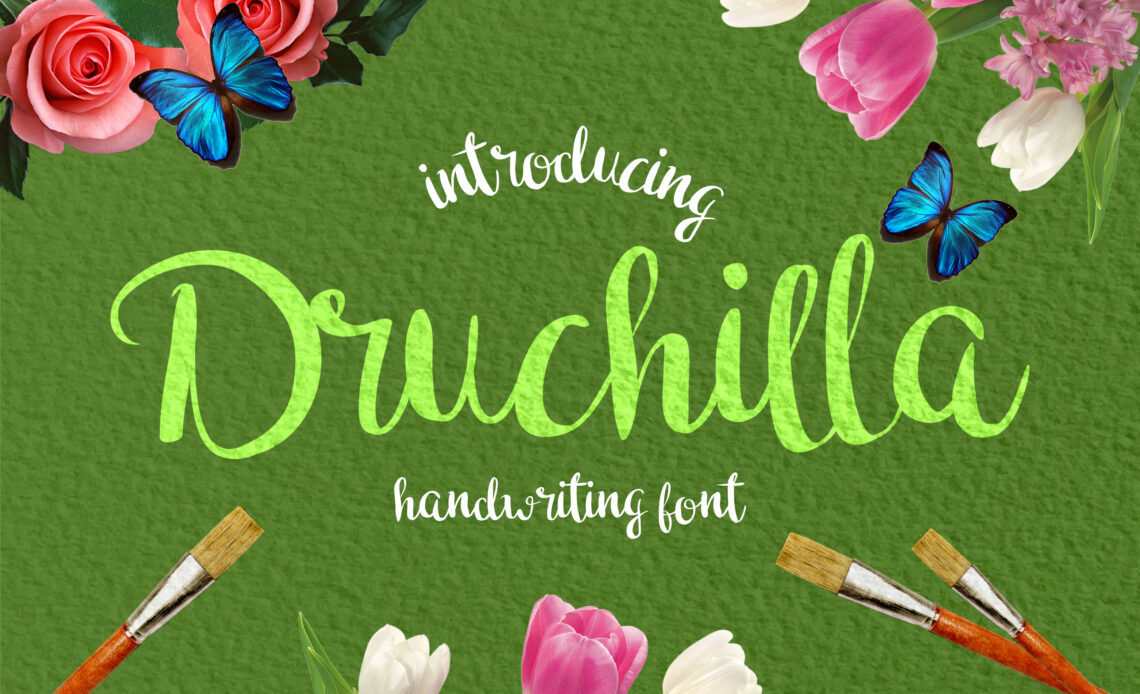
Druchilla Font
Unleash your creative flair with Druchilla, a captivating handwritten font that brings a touch of playful elegance to your digital designs. With over 400 meticulously crafted glyphs, Druchilla offers an array of characters that transcend the ordinary, inviting you to express your individuality in every word you type.
Indulge in the artistry of Druchilla's sweeping strokes, each one imbued with a raw, human touch that breathes life into your text. Whether you're crafting heartfelt letters, designing eye-catching social media posts, or adding a touch of charm to your website, Druchilla is the perfect partner for your creative journey.
Immerse yourself in a world of endless possibilities with Druchilla. Its versatile nature makes it the ideal choice for an array of projects, from wedding invitations that radiate romance to whimsical posters that spark imagination. Let your creativity flow as you explore the boundless potential of this versatile font.
Made with love by madeDeduk, Druchilla is a testament to the transformative power of handwritten fonts. Its intricate details and flowing lines capture the essence of human expression, adding a layer of depth and emotion to your digital creations.
Step into a world of personalized design with Druchilla. Its unique glyphs allow you to create captivating monograms, striking logos, and eye-catching headlines that leave a lasting impression. Elevate your branding efforts and make a statement with Druchilla, the font that speaks volumes.
Join the creative revolution and embrace the beauty of handwritten fonts. Druchilla awaits you, ready to ignite your imagination and transform your digital designs into captivating works of art. Experience the magic of Druchilla today and let your creativity flourish like never before.